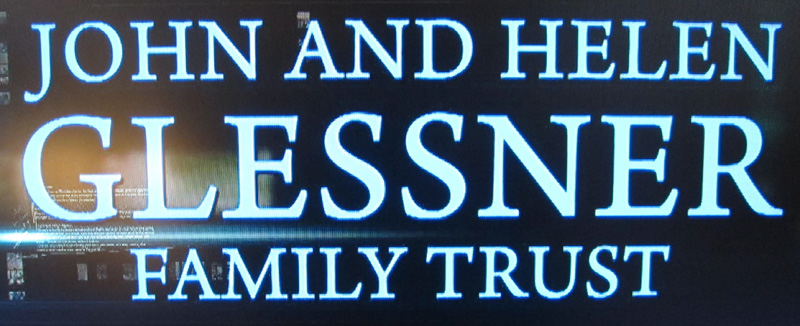
Appeared on PBS' Frontline last night in the credits. It looks a little like a Garamond or Centaur, but more chiseled and robust.
Arno Pro
by Robert Slimbach.